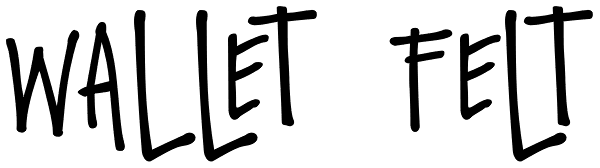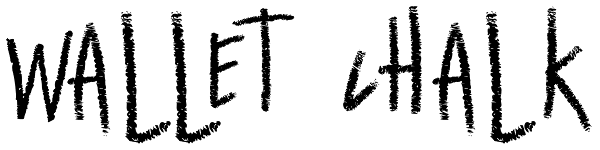
Wallet
Wallet is an expressive handwritten font with loads of personality, suitable for many different projects. It comes in three styles: Felt, Felt bold and Chalk. Wallet has 391 glyphs and supports multiple languages. Opentype features, such as...
Wallet Felt Bold
Wallet Felt
Wallet Chalk